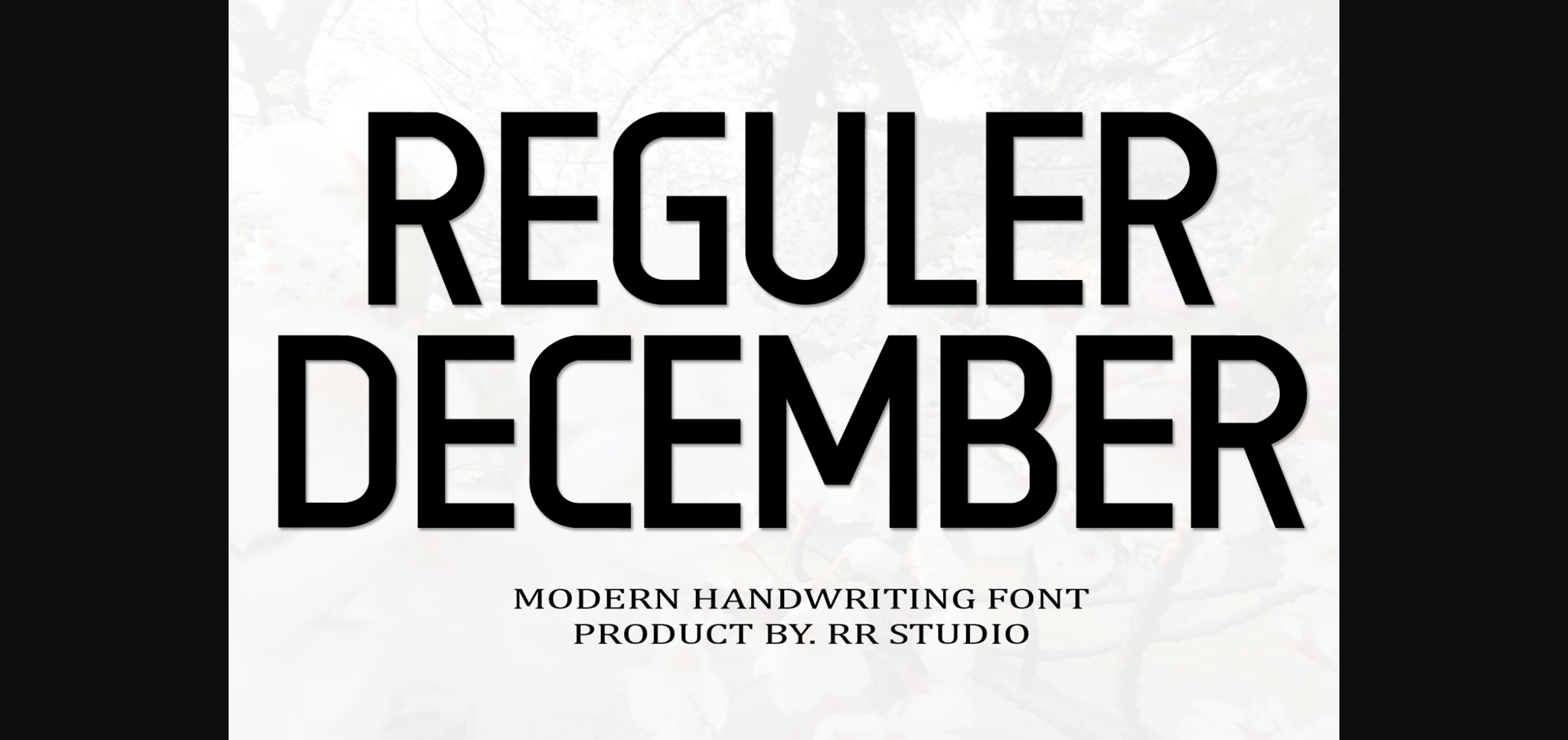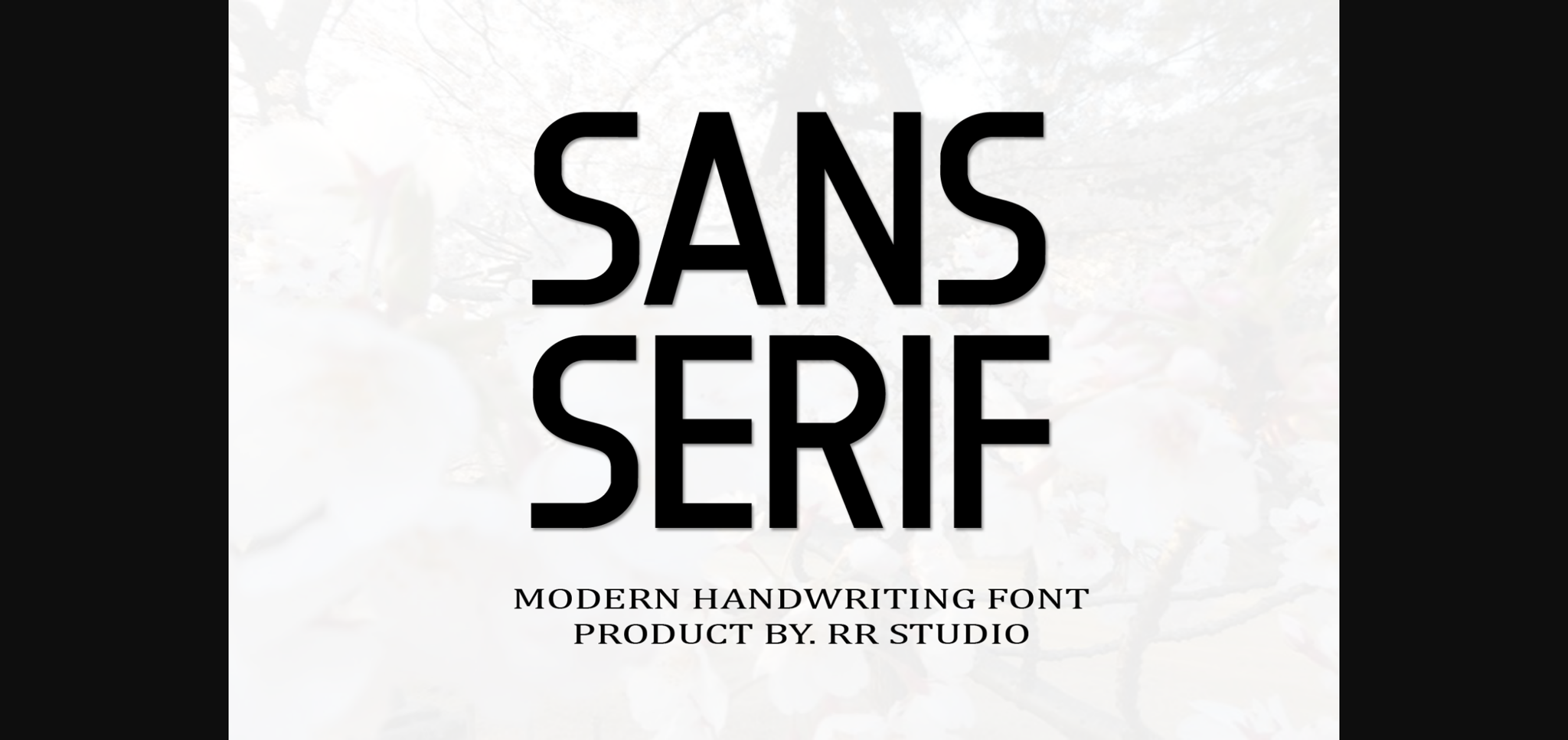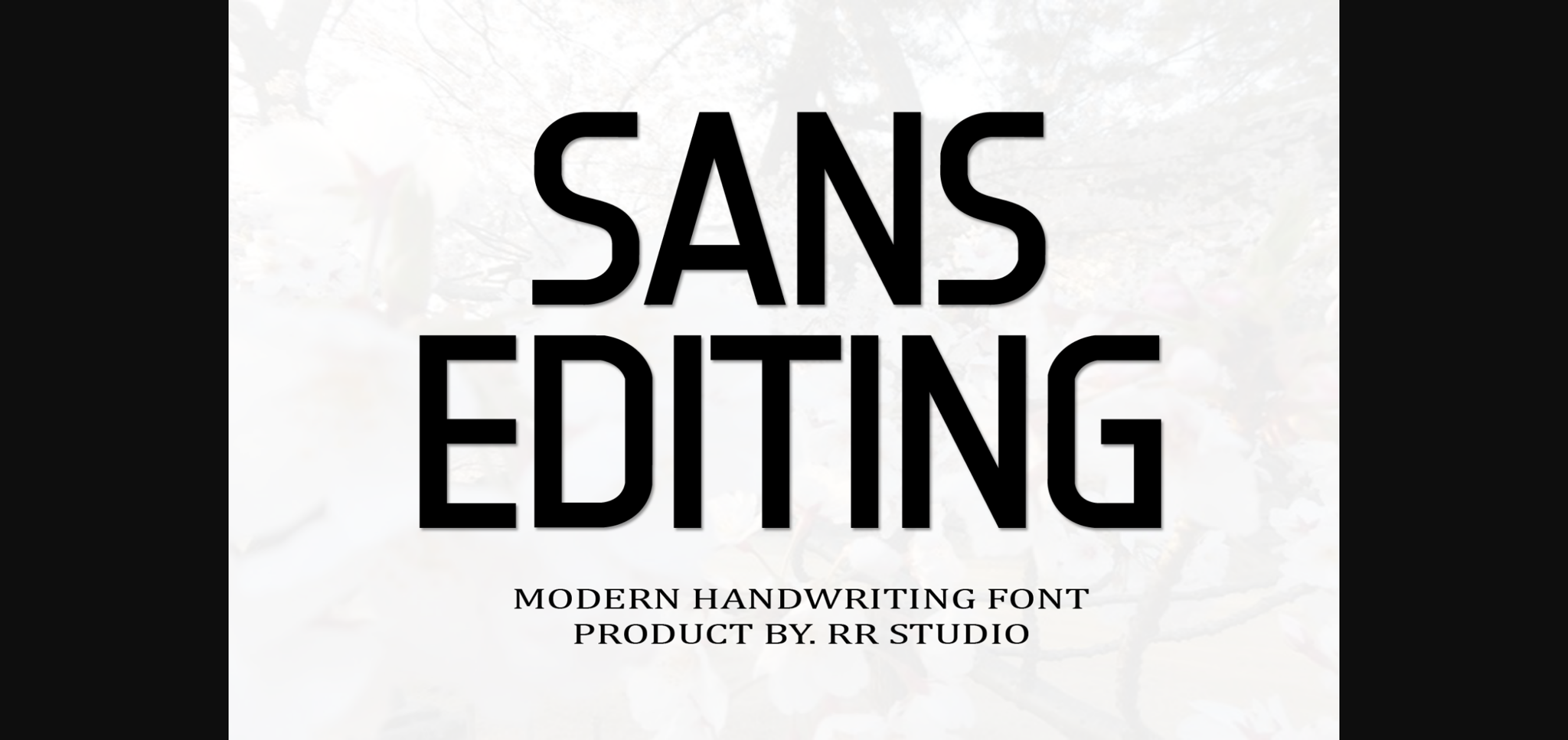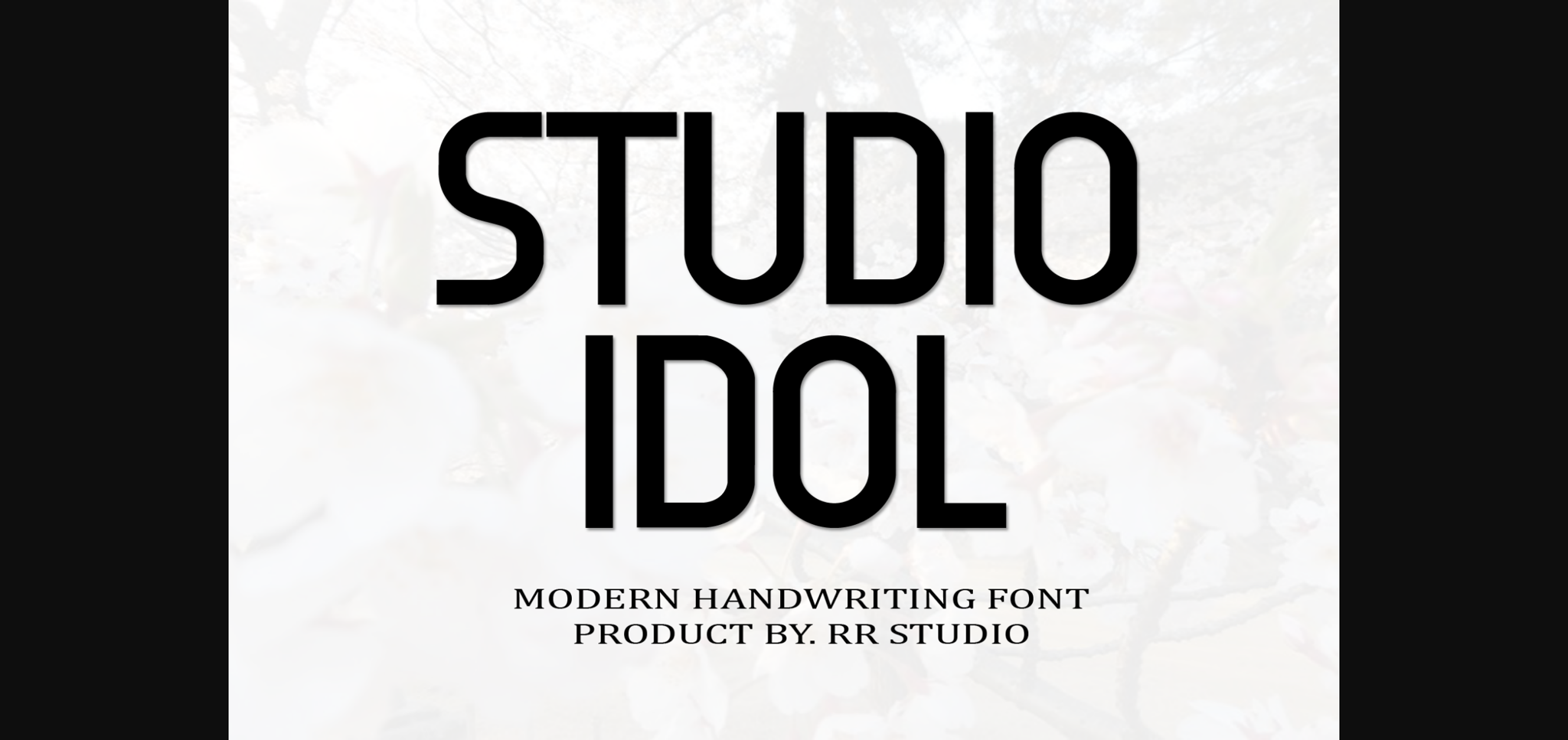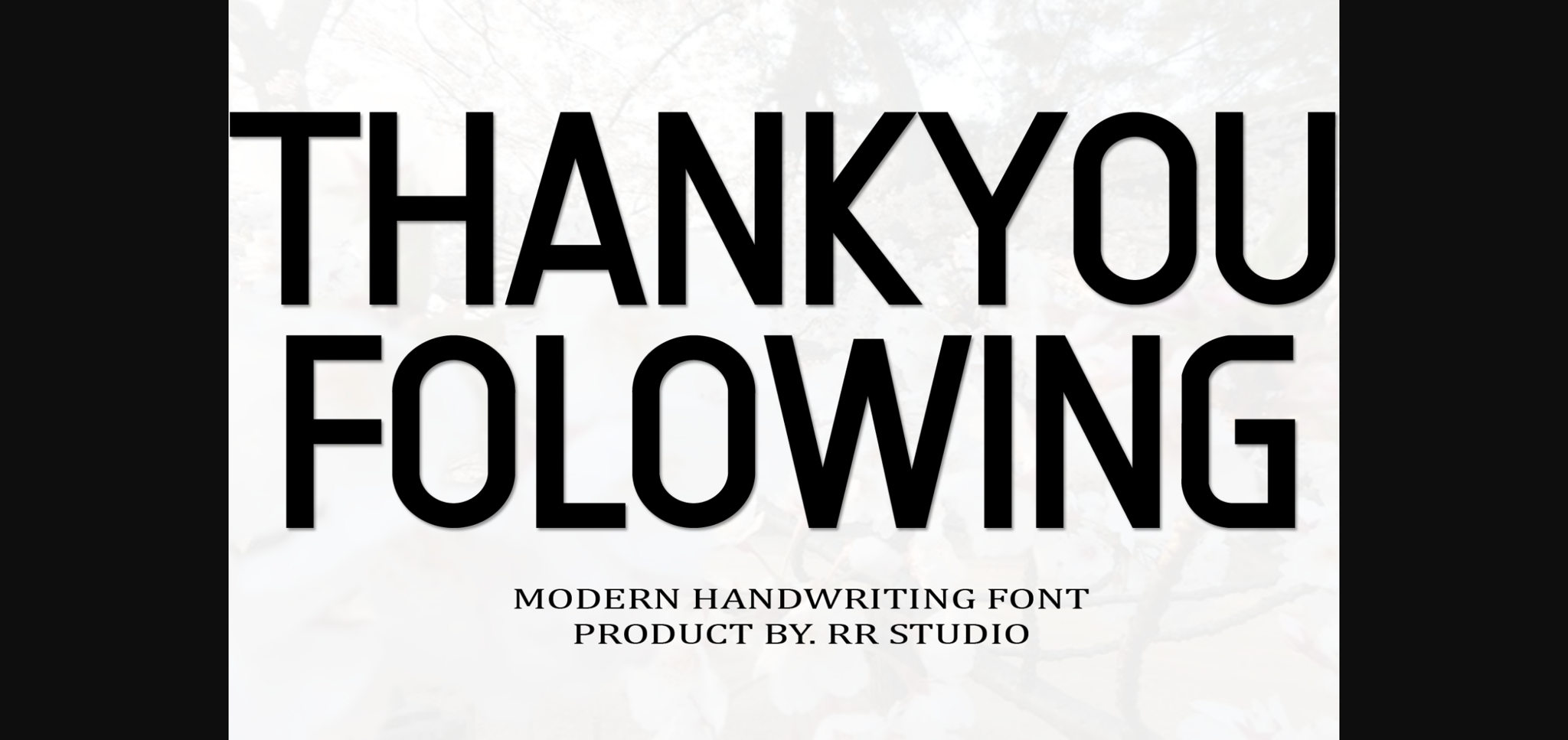
HomeSans Serif FontsReguler December Font Sans Serif Fonts Reguler December Font FacebookXPinterestWhatsApp 1 of 7 ... Reguler December Font Poster 2... Reguler December Font Poster 3... Reguler December Font Poster 4... Reguler December Font Poster 5... Reguler December Font Poster 6... Reguler December Font Poster 7... About Reguler December Font Reguler December is a classic and simple sans serif font. Incredibly versatile, this typeface will be a great addition to your fonts collection. DOWNLOAD NOW People also explored ZP Daisy Family Font Arbalest Font Merry Ball Font Yumaidia Font Righttoast Font Antonio Fischer Font Sabryan Font Coco Hawaiian Font Monday Font 306 0 TagsReguler December Font Previous articleLarisa FontNext articleRiverio Font LEAVE A REPLY Cancel reply Comment: Please enter your comment! Name:* Please enter your name here Email:* You have entered an incorrect email address! Please enter your email address here Website: Save my name, email, and website in this browser for the next time I comment. Personal Use Free Market Love Personal Use Free Read more about this font The Lima Personal Use Free Read more about this font Street Cred Personal Use Free Read more about this font The Moshbusther Personal Use Free Read more about this font BLOG Where to Buy American Fonts Online in 2024 Where to Buy American Fonts Online: The Ultimate Guide for 2024 Looking for the perfect American font to elevate your design projects? You're in the... Using Fonts in Digital Marketing: Tips to Strengthen Your Brand Identity Modern Sans-Serif Fonts That Brands Love in 2025 The 10 Best Handwriting Fonts to Add Personality to Your Designs